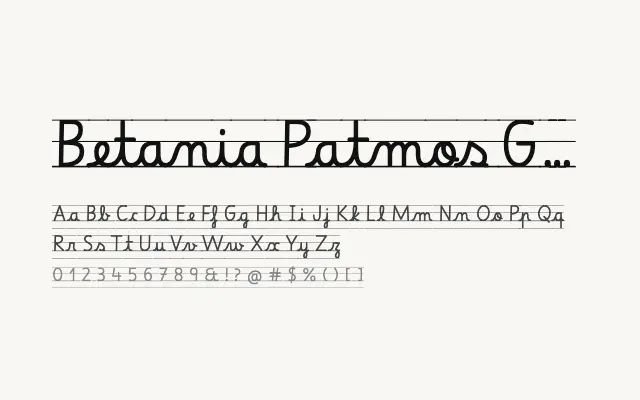
Betania Patmos GDL
A language-variant of Betania Patmos offering adjusted glyphs for specific orthographic requirements.
Betania Patmos GDL shares the soft, pen-drawn aesthetic of the base Betania Patmos family while providing glyph-level adjustments for particular script or language needs. Like its sibling, it is best suited to devotional and inspirational publishing contexts. Its highly specialised function means it has limited general-purpose application.
Betania Patmos GDL is a variant of the Betania Patmos script with glyph differentiation for language-specific needs, sharing the same flowing calligraphic construction. It extends coverage for particular orthographic requirements.